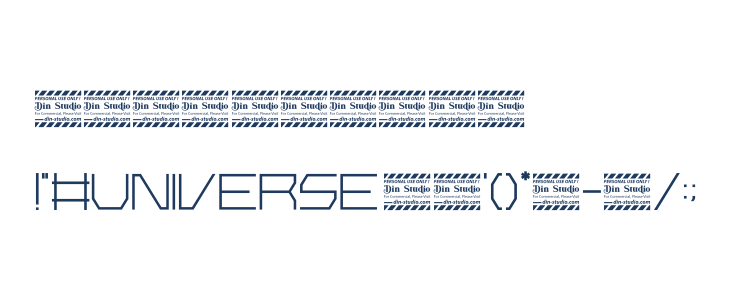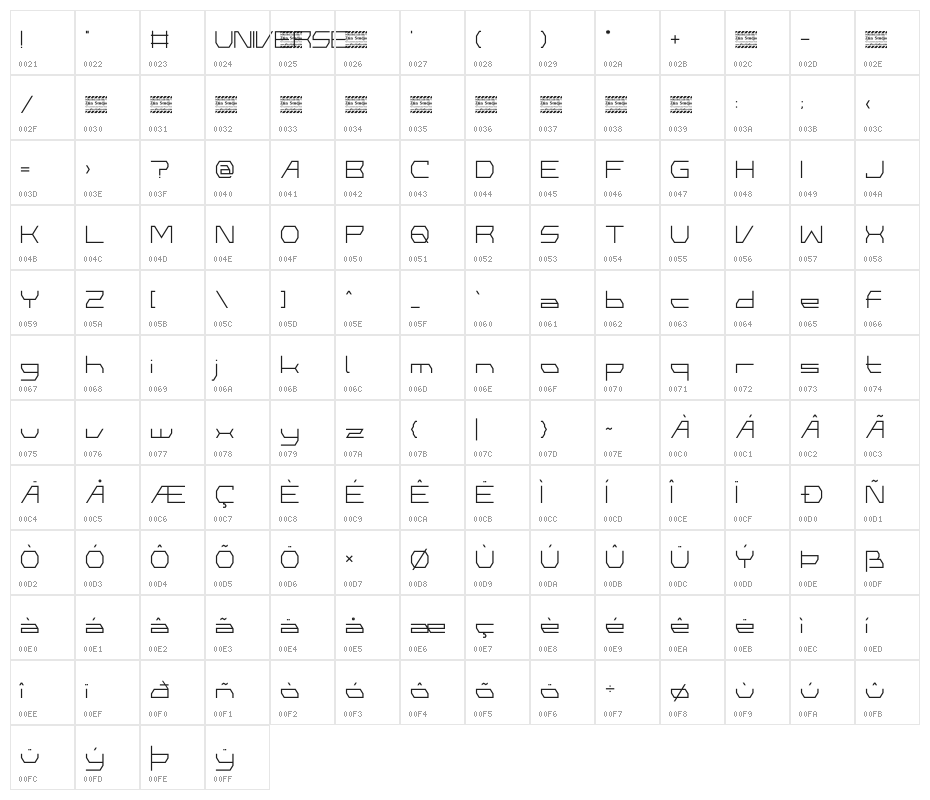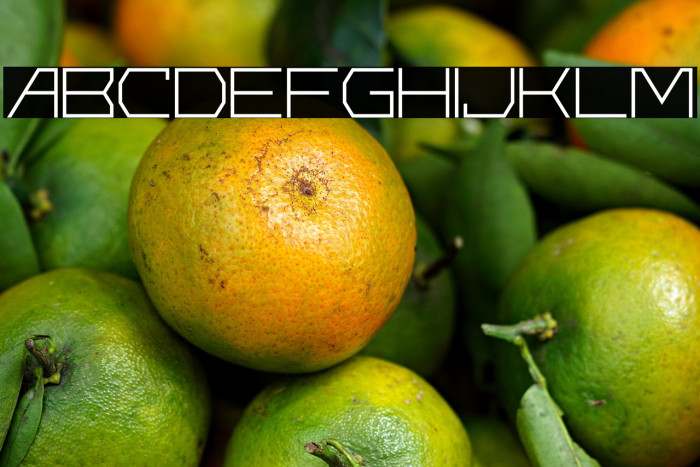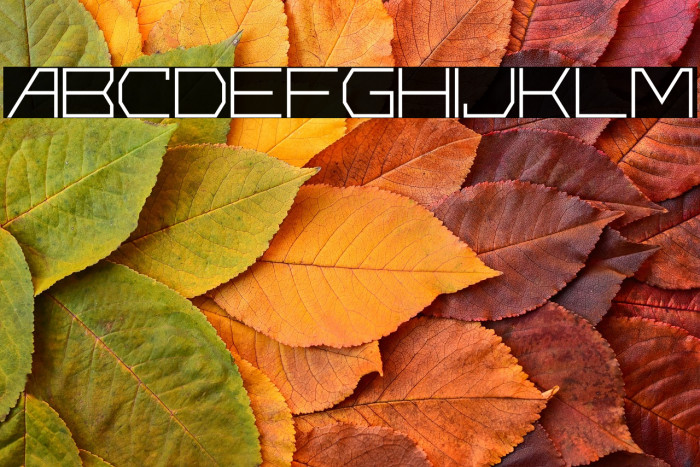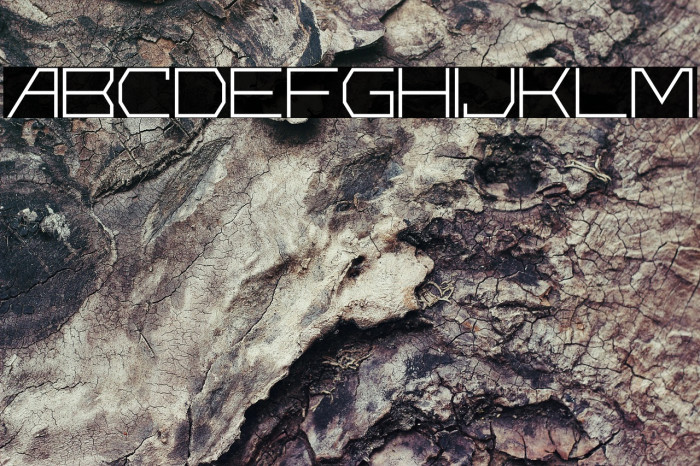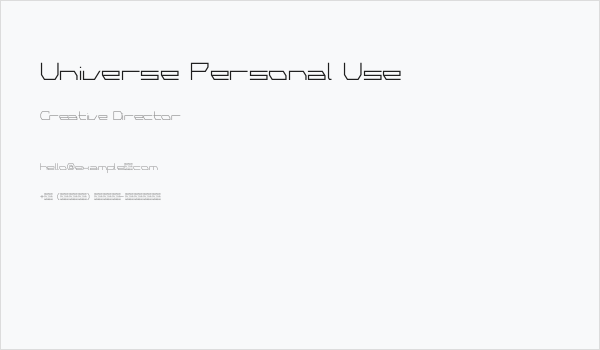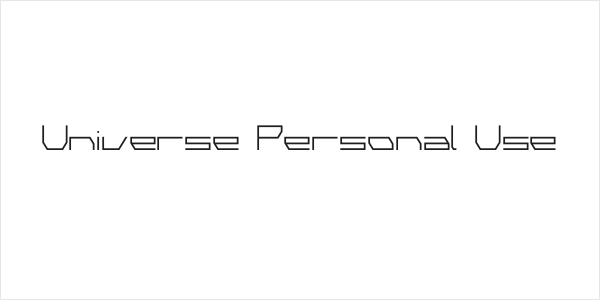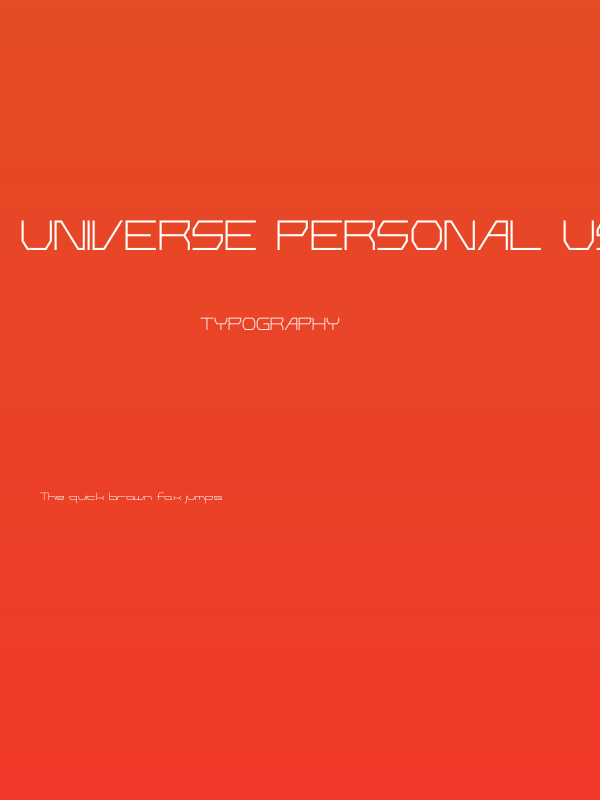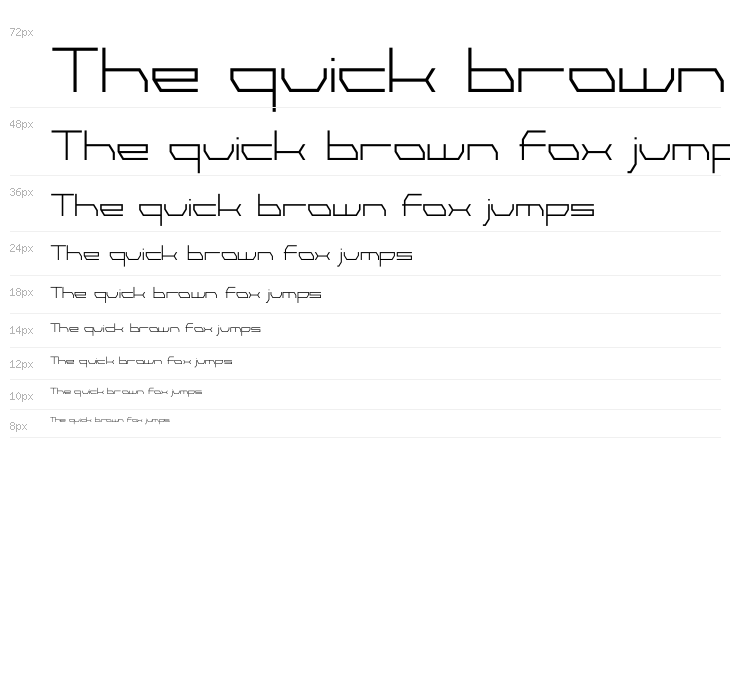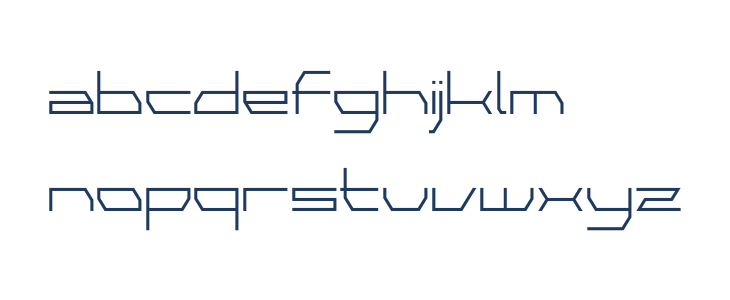
Universe Personal Use Font
Universe Personal Use Description
This font features a futuristic and geometric design, characterized by its angular and linear structure. The uppercase and lowercase letters maintain a consistent height, creating a uniform appearance. The strokes are thin and precise, with a mechanical feel that suggests a high-tech or digital aesthetic. The characters are distinct and easily readable, with unique stylizations that add a modern twist. The special characters and numbers follow the same design principles, ensuring cohesion across all elements.
| Use Case | Logos, Headlines, Digital interfaces |
| Proposed Projects | Ideal for technology branding, sci-fi themed projects, digital interfaces, and modern advertising. |